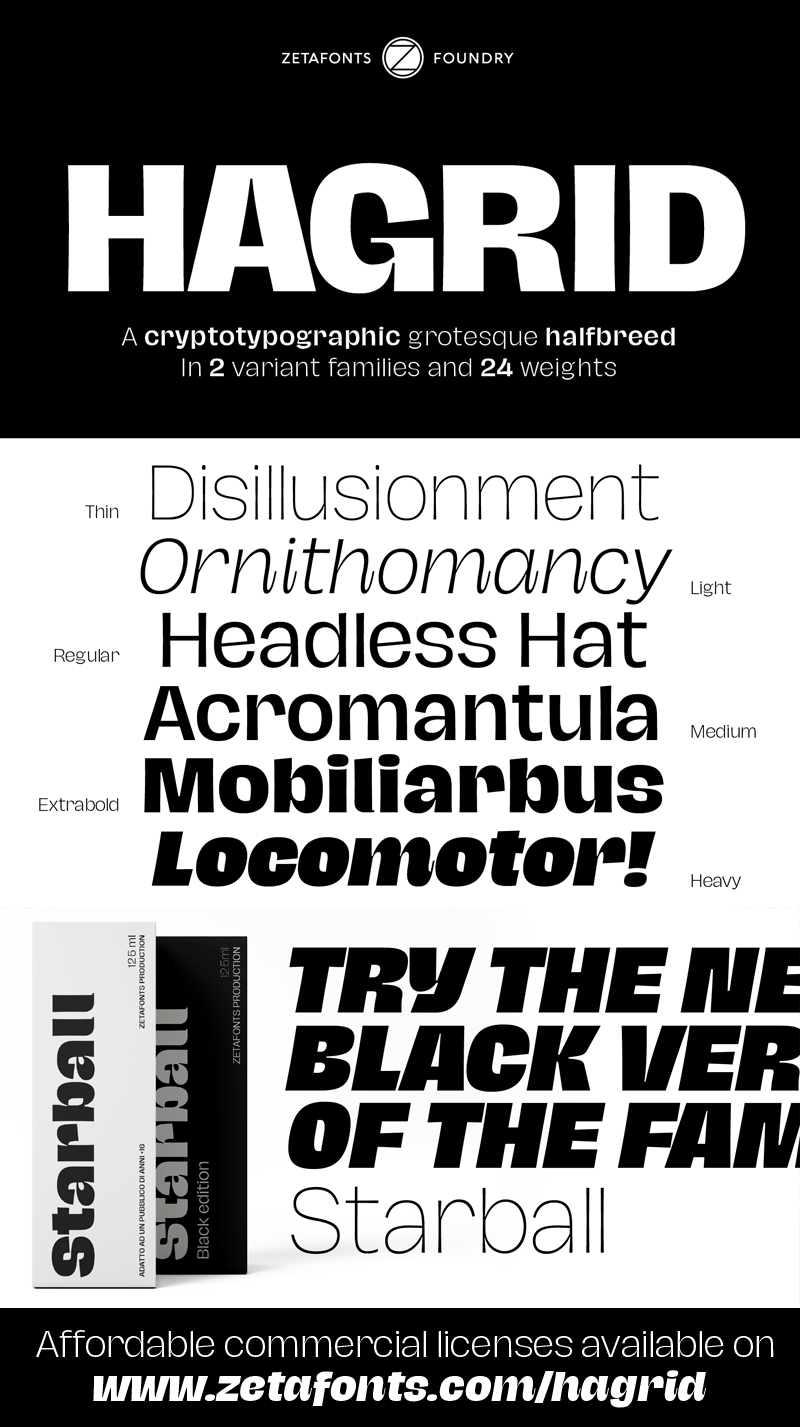
Hagrid
Hagrid is a unique typeface family that celebrates the art of crypto-typography, echoing the passion for unusual character shapes. Crafted by Cosimo Lorenzo Pancini, this typeface draws inspiration from the beloved half-blood giant from R.K. Rowling's Harry Potter series. Hagrid features extreme optical corrections, calligraphic counter-spaces, and inverted contrasts, blending quirky design with solid grotesque elements.
Designed for both editorial and display use, Hagrid infuses energy into printed and digital mediums. It showcases an impressive range of six display weights, from traditional thin to expressive heavy, ensuring versatility. Additionally, a companion text family complements the display version, optimized for readability in smaller sizes. The text italics maintain the dynamic expressivity of the design while offering a more restrained slant.
Hagrid prioritizes multilingual accessibility, boasting an extensive character set that supports over two hundred languages across Latin, Cyrillic, and Arabic scripts. With its diverse OpenType features, Hagrid is the perfect choice for innovative and engaging typographic projects.